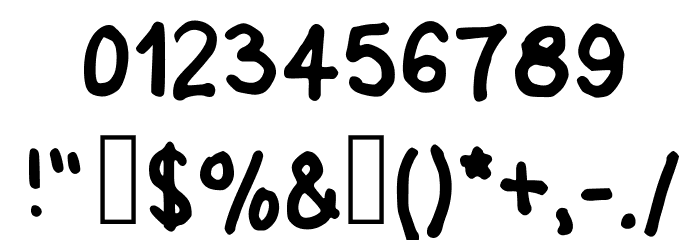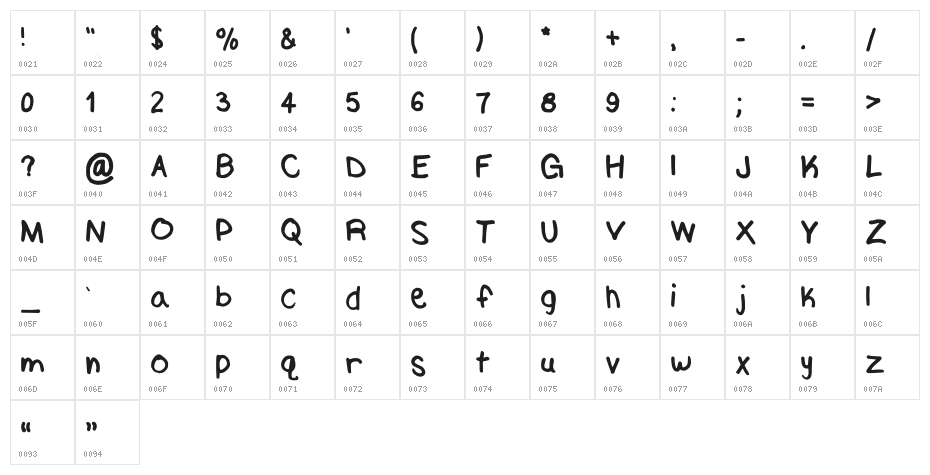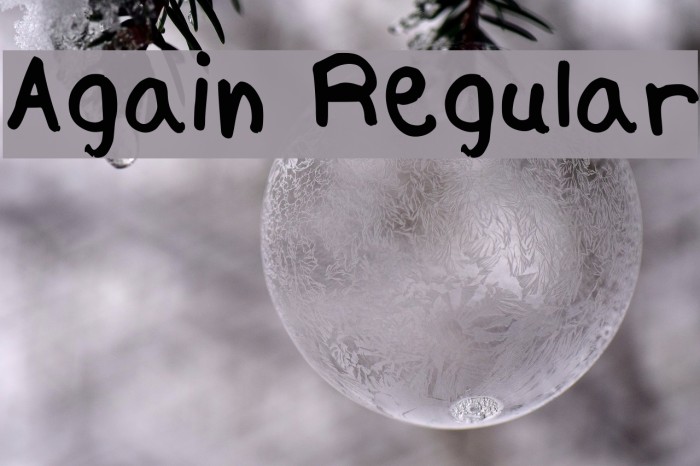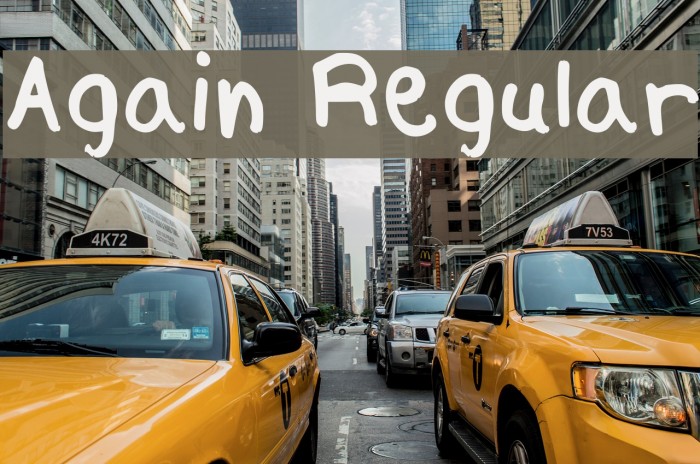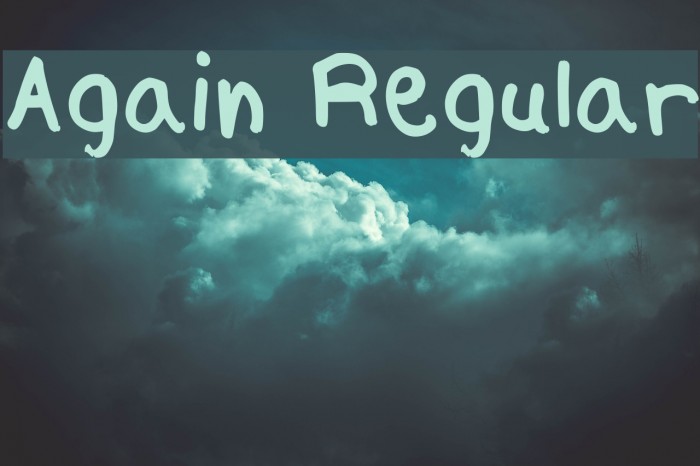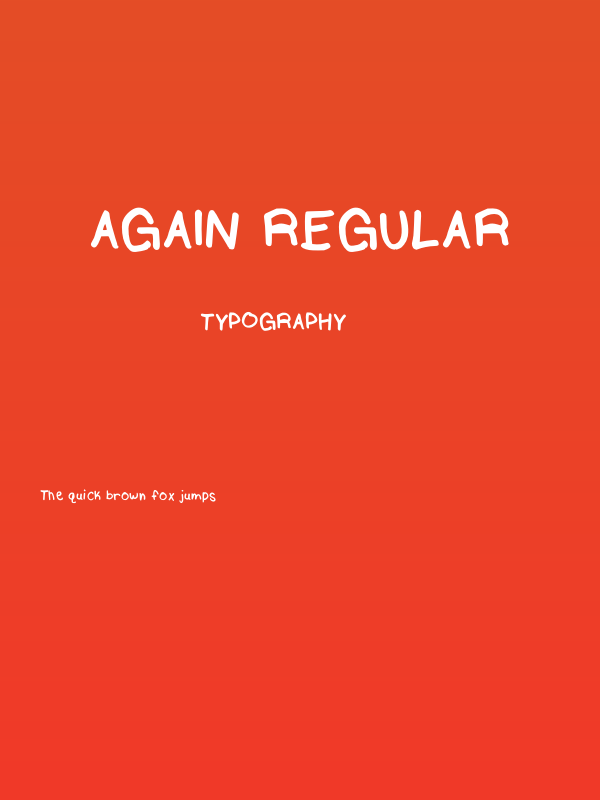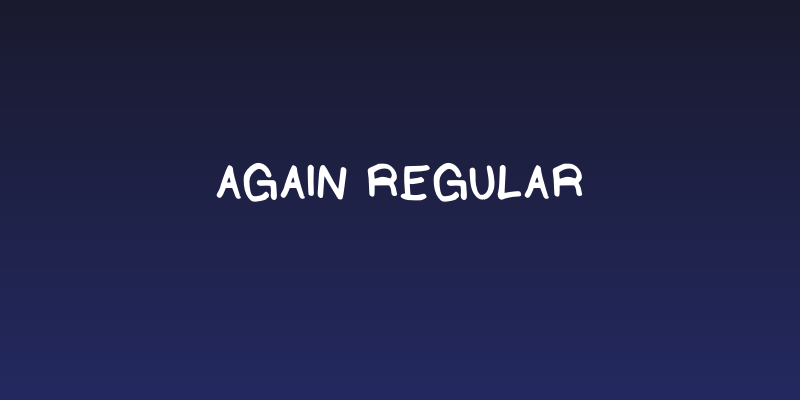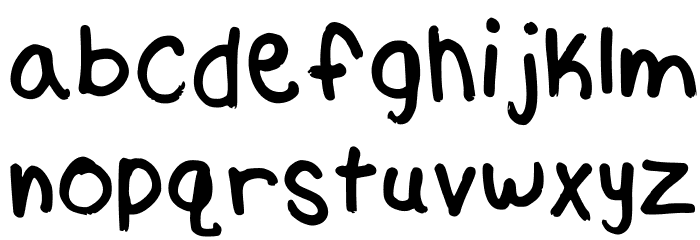
Again Regular Font
Again Regular Description
This font exhibits a playful and casual handwritten style, characterized by its rounded and slightly irregular letterforms. The strokes are consistent in thickness, giving it a uniform appearance while maintaining a friendly and approachable vibe. The uppercase and lowercase letters are well-balanced, with a slight tilt that adds to the informal aesthetic. The numerals and special characters follow the same design principles, ensuring coherence across all glyphs. This font is ideal for projects that require a personal touch, such as greeting cards, invitations, or children's book illustrations.
| Proposed Projects | Ideal for greeting cards, invitations, children's books, and informal branding. |